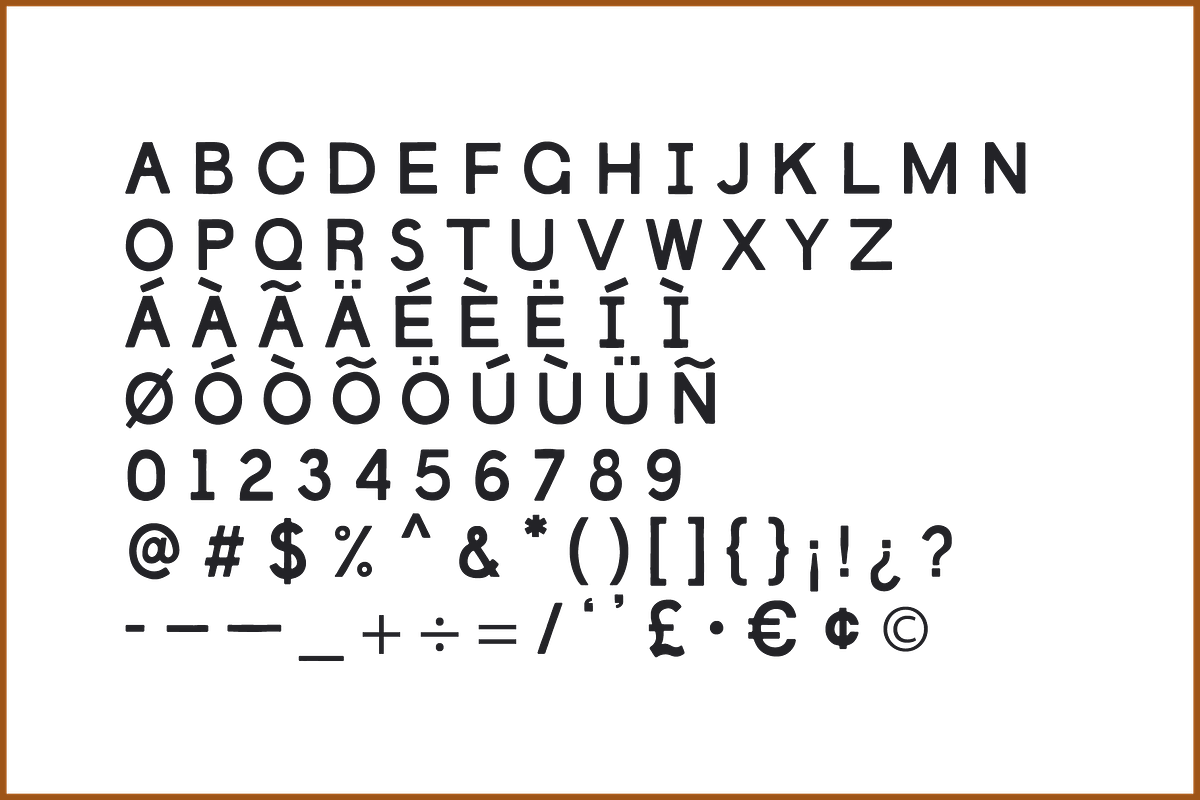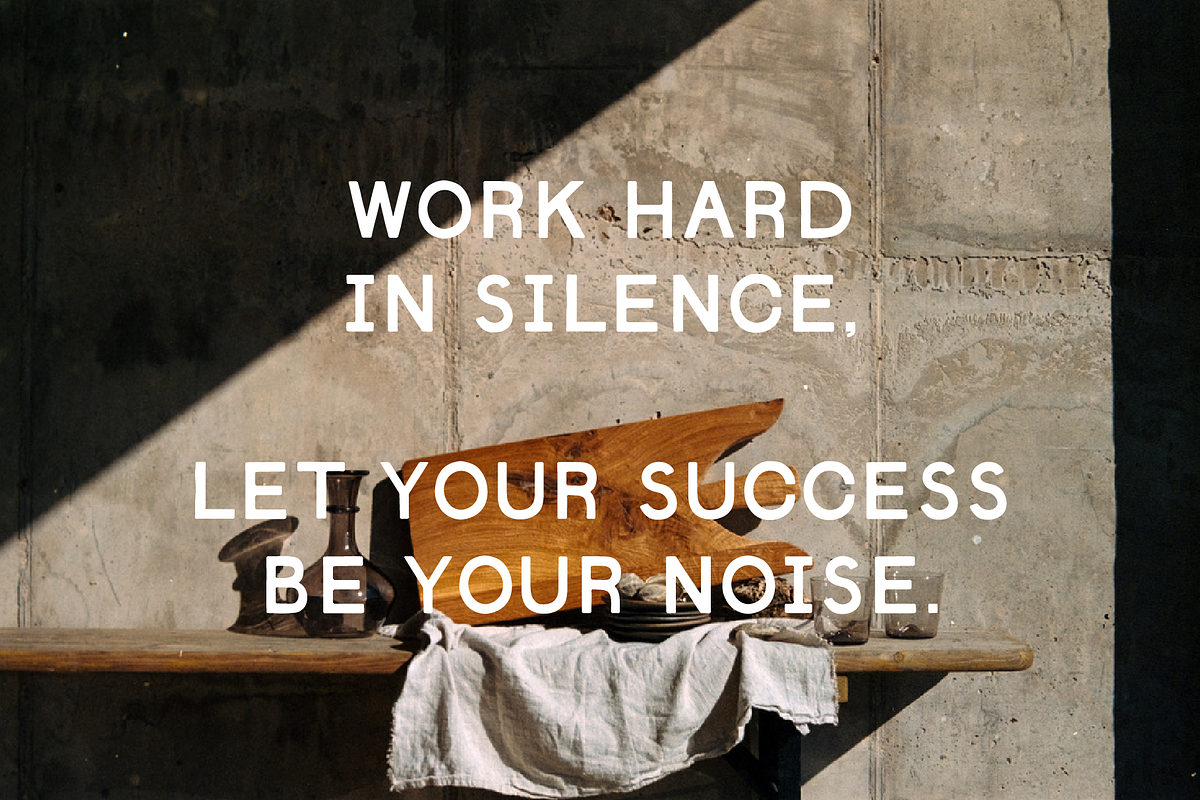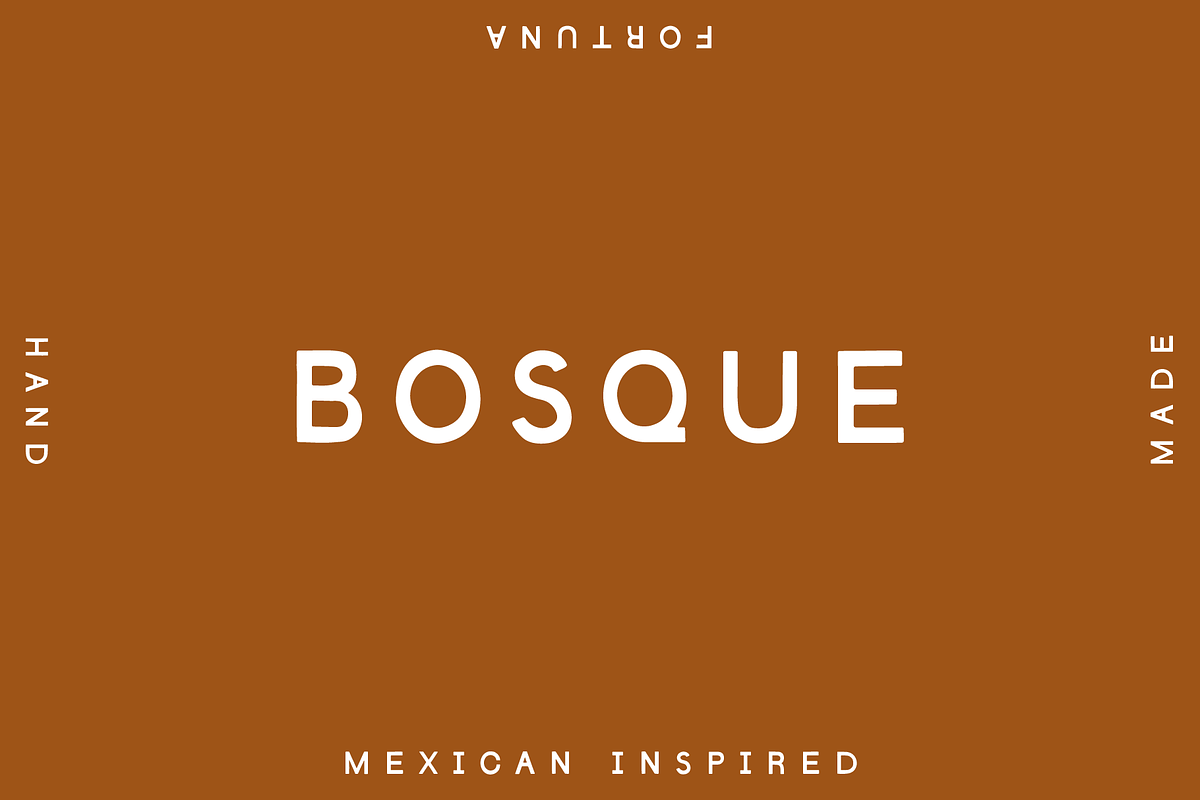
Bosque: Hand Drawn Sans Serif
Bosque takes inspiration from modern Mexican design aesthetics.
Minimal with character was the mantra when designing Bosque.
- Uppercase letters
- Digits
- Accents